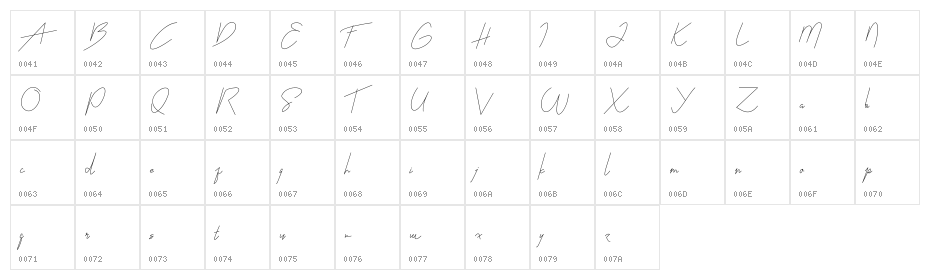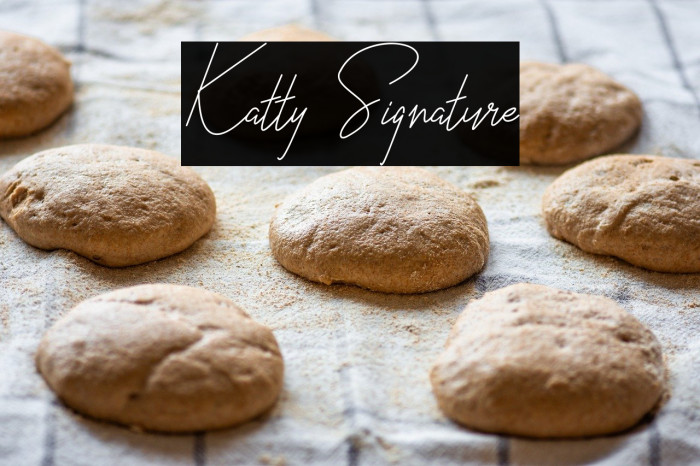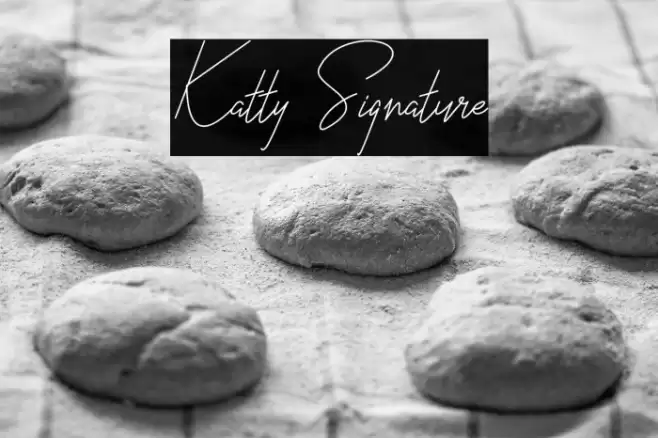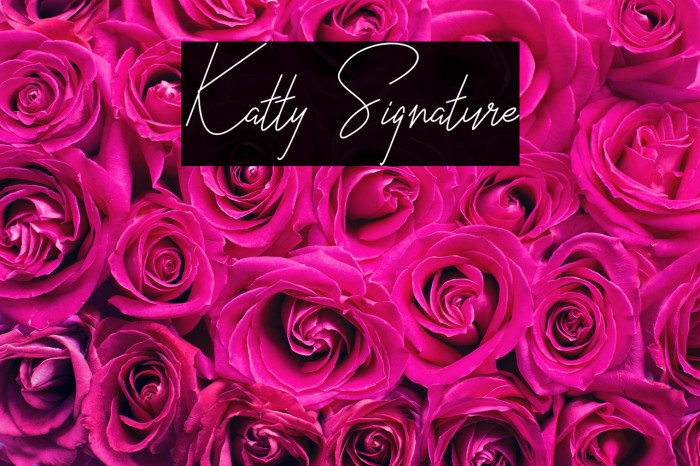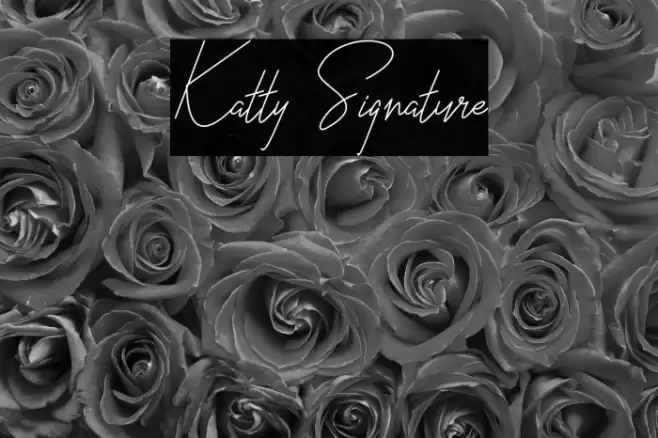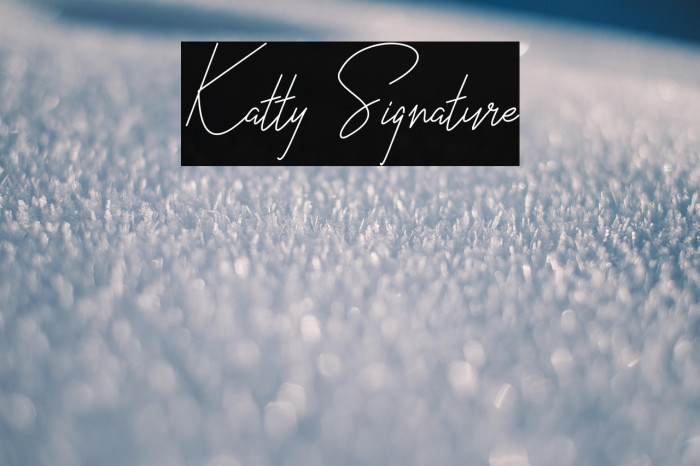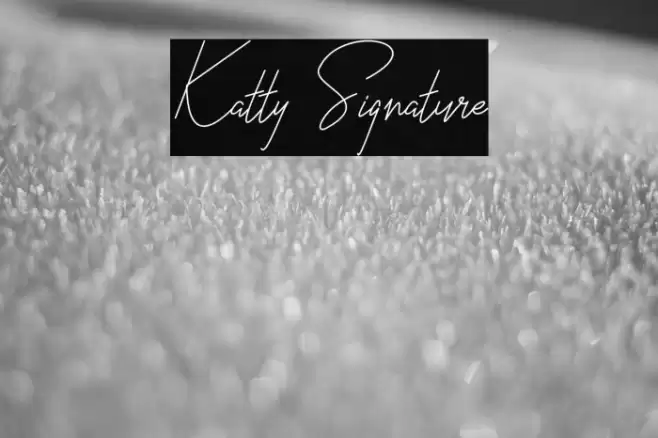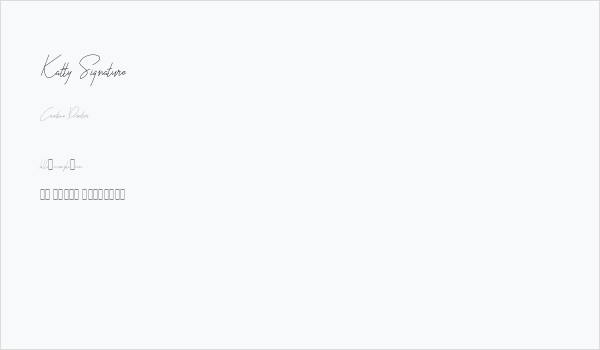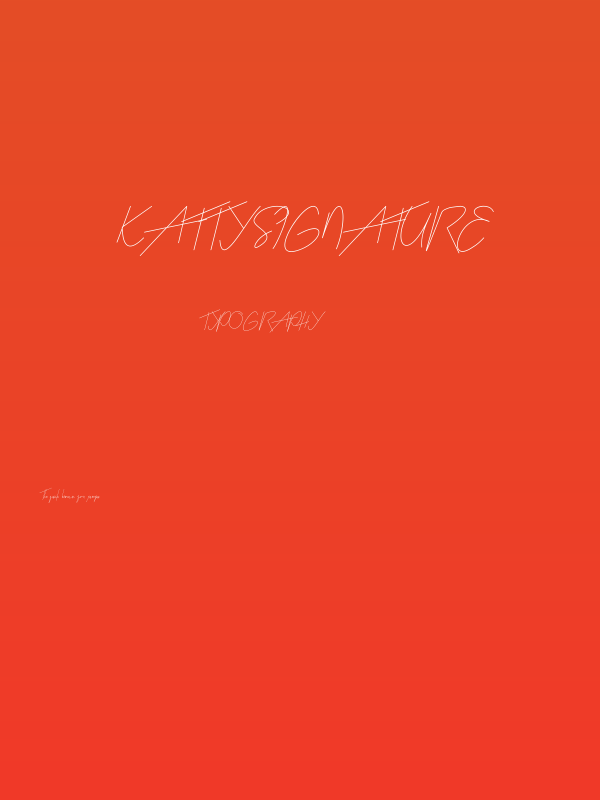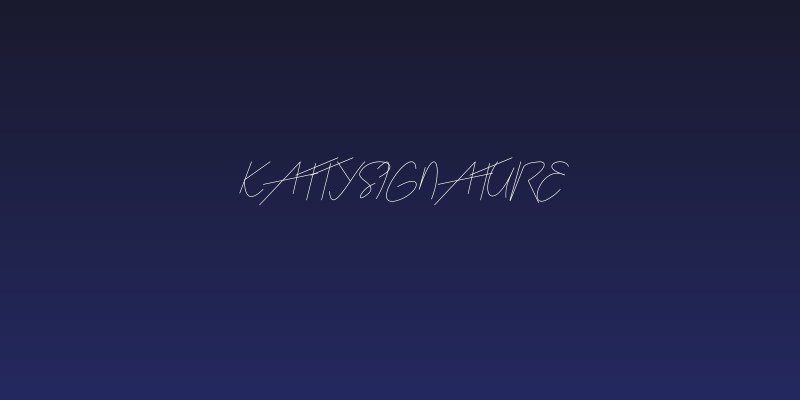
Katty Signature Font
Katty Signature Description
This elegant script font features a flowing, cursive style that mimics the fluidity of a handwritten signature. The letters are connected with smooth, sweeping lines, giving it a sophisticated and personal touch. The uppercase letters are elongated and stylish, while the lowercase letters maintain a consistent flow, enhancing readability. The font's thin strokes and delicate curves create a sense of grace and refinement, making it ideal for projects that require a touch of elegance and personalization.
| Proposed Projects | Ideal for wedding invitations, personal branding, logo design, and elegant stationery. |